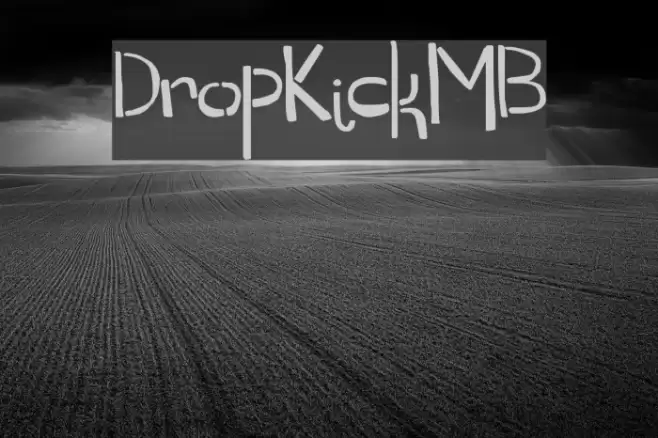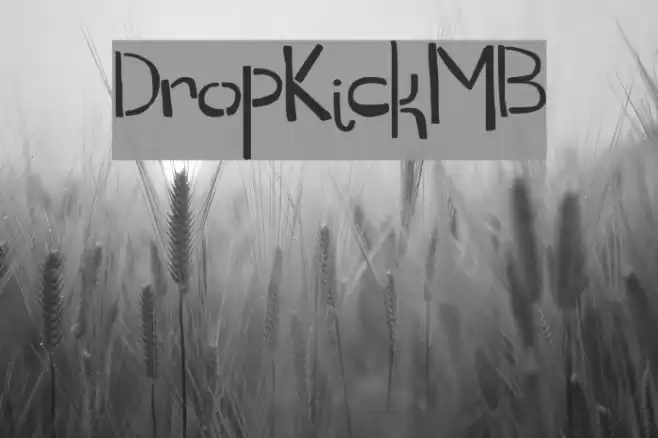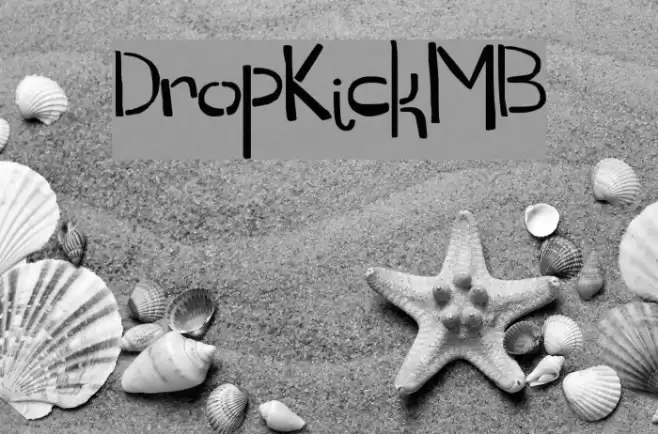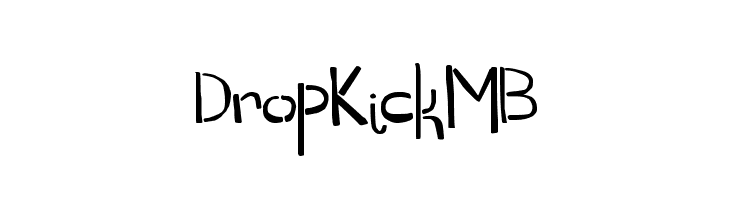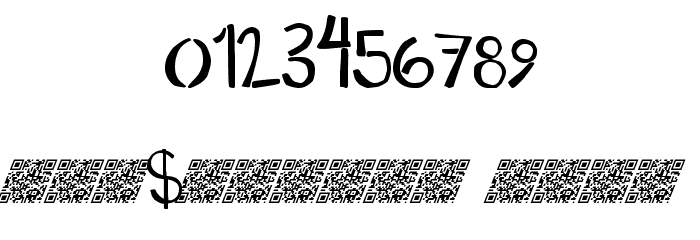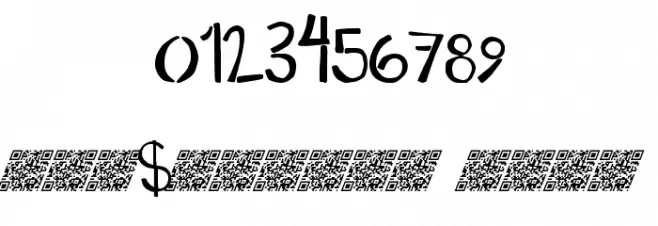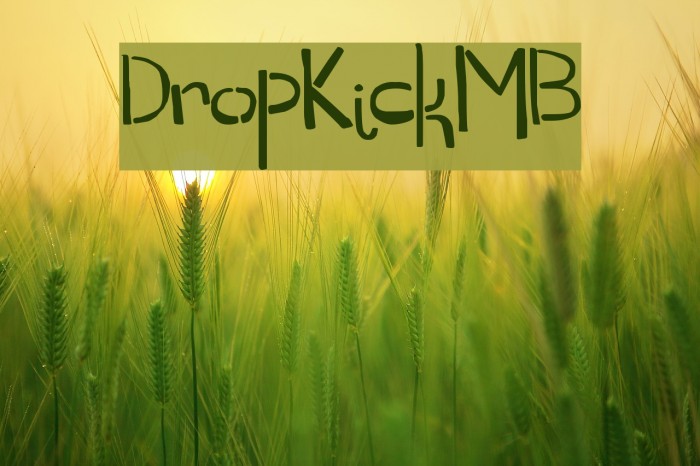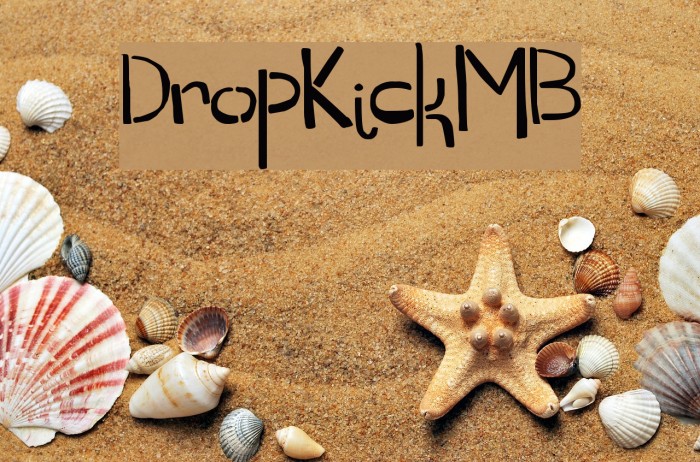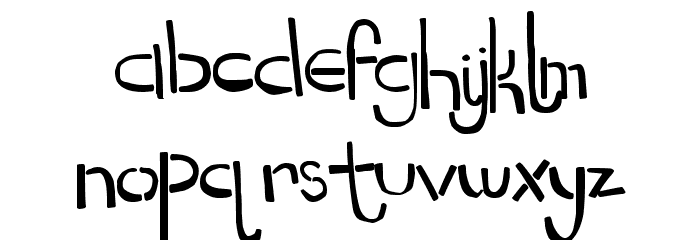
DropKickMB Font
DropKickMB Description
This font features a playful and quirky design, characterized by its irregular and whimsical letterforms. The uppercase letters exhibit a mix of thick and thin strokes, creating a dynamic and energetic appearance. The lowercase letters maintain this playful aesthetic, with unique curves and angles that add to the font's charm. Numbers and special characters follow the same style, ensuring consistency throughout. The overall look is informal and fun, making it suitable for creative and lighthearted projects.
A playful and quirky font with irregular, whimsical letterforms from Uncategorized fonts.
- Proposed Projects: Ideal for children's books, playful branding, party invitations, and creative posters.
- Overall Style: Playful